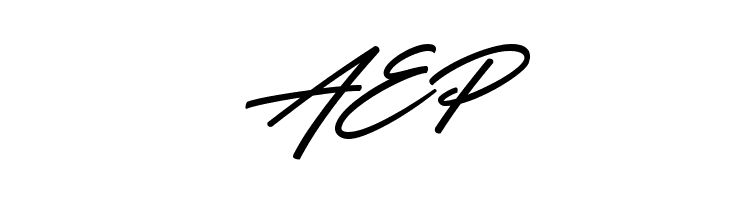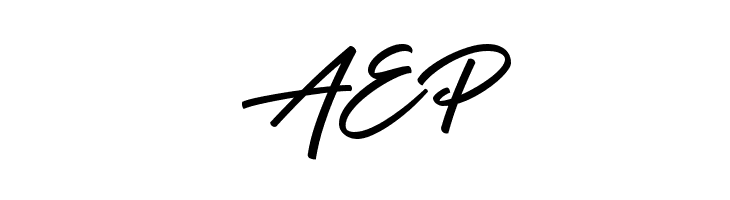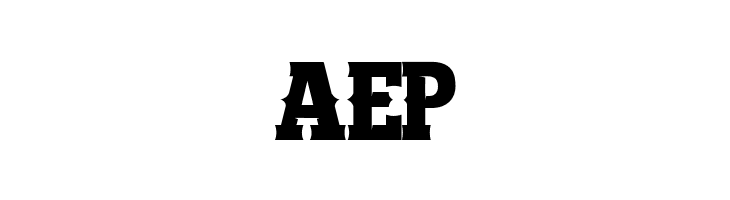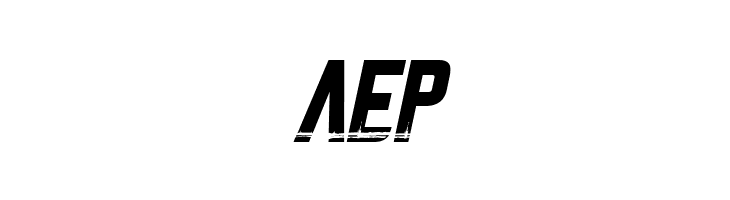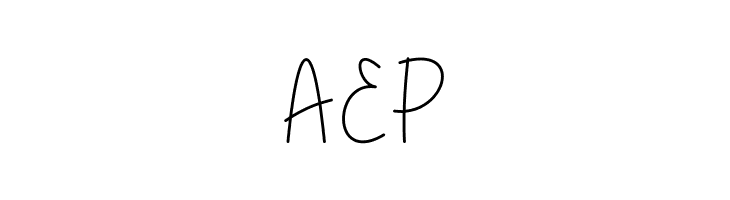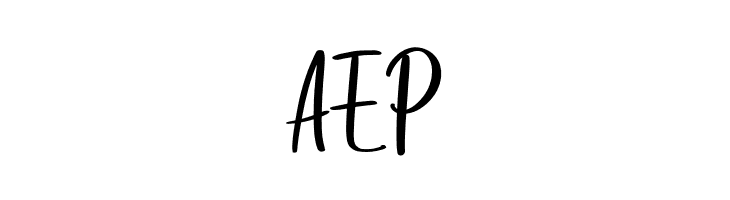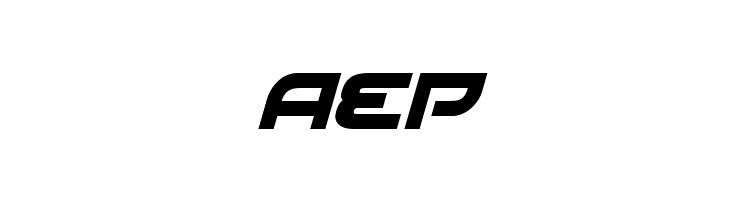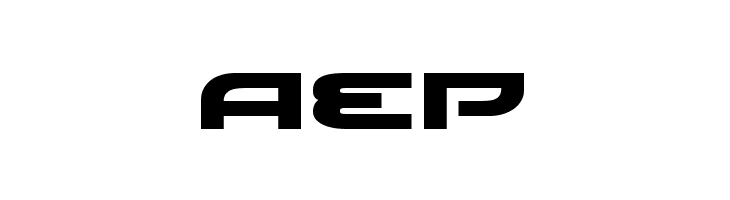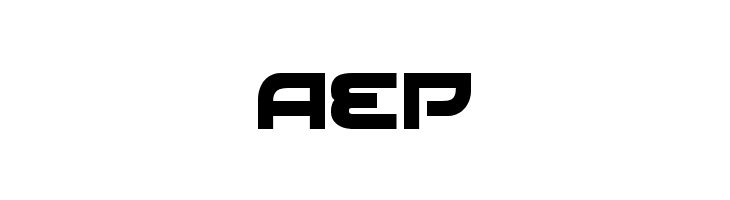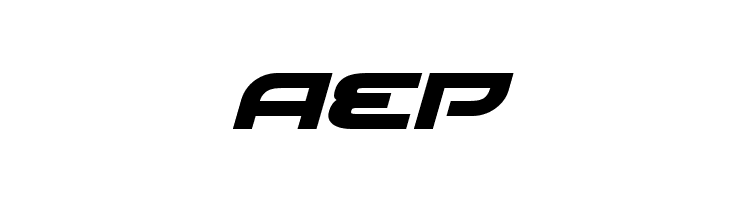
An elegant and flowing script font with a sophisticated, calligraphic style.
A fluid and elegant script font with a handwritten appearance.
A refined, cursive script font with elegant, flowing lines.
A modern, handwritten font with a casual and flowing style.
A bold, geometric font with a three-dimensional, futuristic design.
A bold, futuristic font with geometric and stencil-like elements.
A playful, handwritten font with tall, narrow letters and a casual style.
A bold, decorative font with a vintage 3D shadow effect.
A bold, playful font with a hand-drawn, casual style.
A flowing, elegant script font with interconnected letters and ornate swashes.
An elegant, cursive script font with flowing curves and delicate loops.
A playful, bold font with rounded, thick strokes and a whimsical touch.
A bold, geometric font with a modern and digital aesthetic.
A bold, geometric font with rounded edges and a modern style.
A playful, italicized font with smooth, rounded strokes and moderate contrast.
A playful, rounded font with a casual, comic-like style.
A playful and elegant handwritten font with fluid, continuous strokes.
A playful and dynamic font with exaggerated curves and varying stroke widths.
A bold, dynamic font with thick strokes and a slightly slanted style.
A bold, playful handwritten font with dynamic and energetic characters.
A bold, italic font with a modern and dynamic style.
A clean, minimalist font with thin, uniform strokes and a modern aesthetic.
A clean, modern sans-serif font with consistent stroke width and excellent readability.
A geometric, square-based font with a modern, outlined design.
A geometric, block-like font with uniform stroke widths and a modern appearance.
A playful, bold, and hand-drawn style font with rounded, whimsical characters.
A bold, geometric font with a futuristic and digital aesthetic.
A bold, geometric font with a futuristic and industrial aesthetic.
A futuristic, geometric font with rounded edges and bold uniformity.
A bold, industrial font with a textured, mechanical appearance.
A geometric, monospaced font with a modern, digital aesthetic.